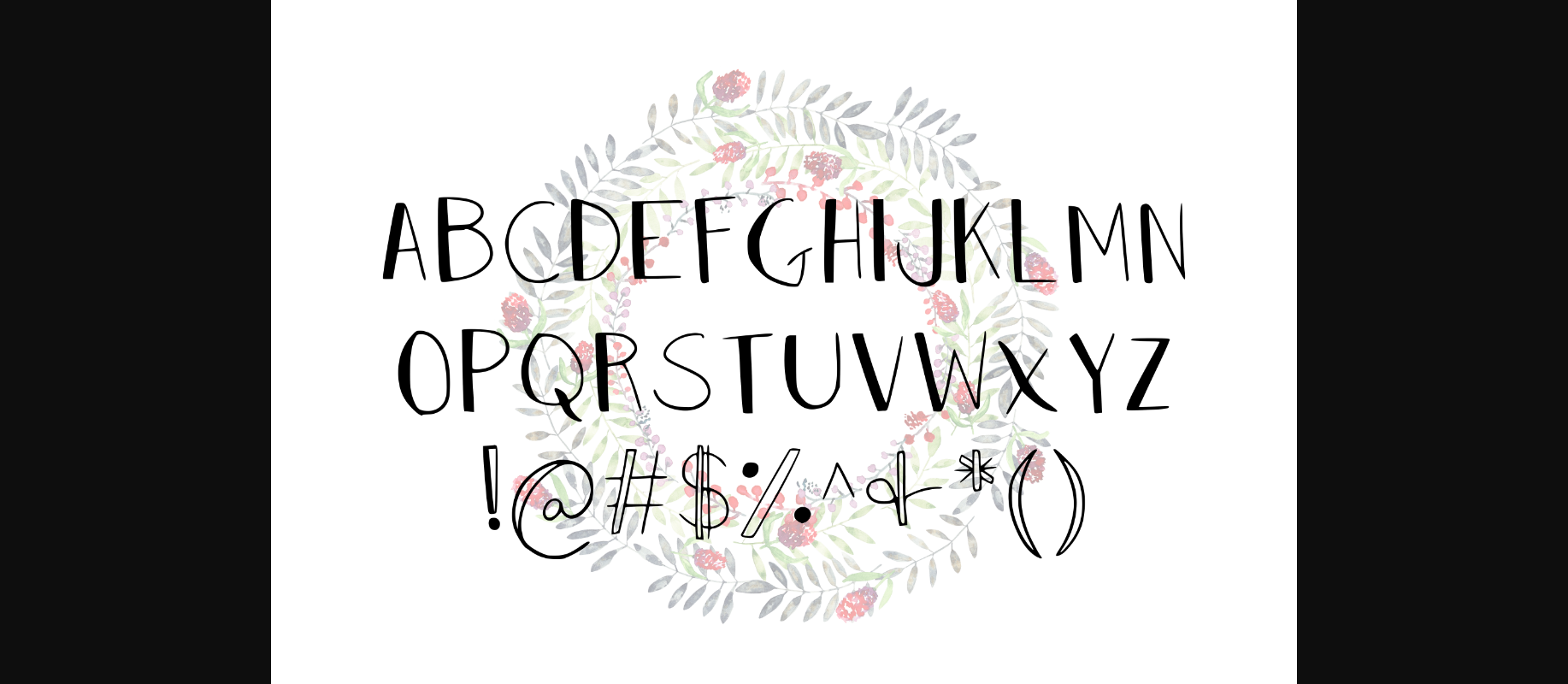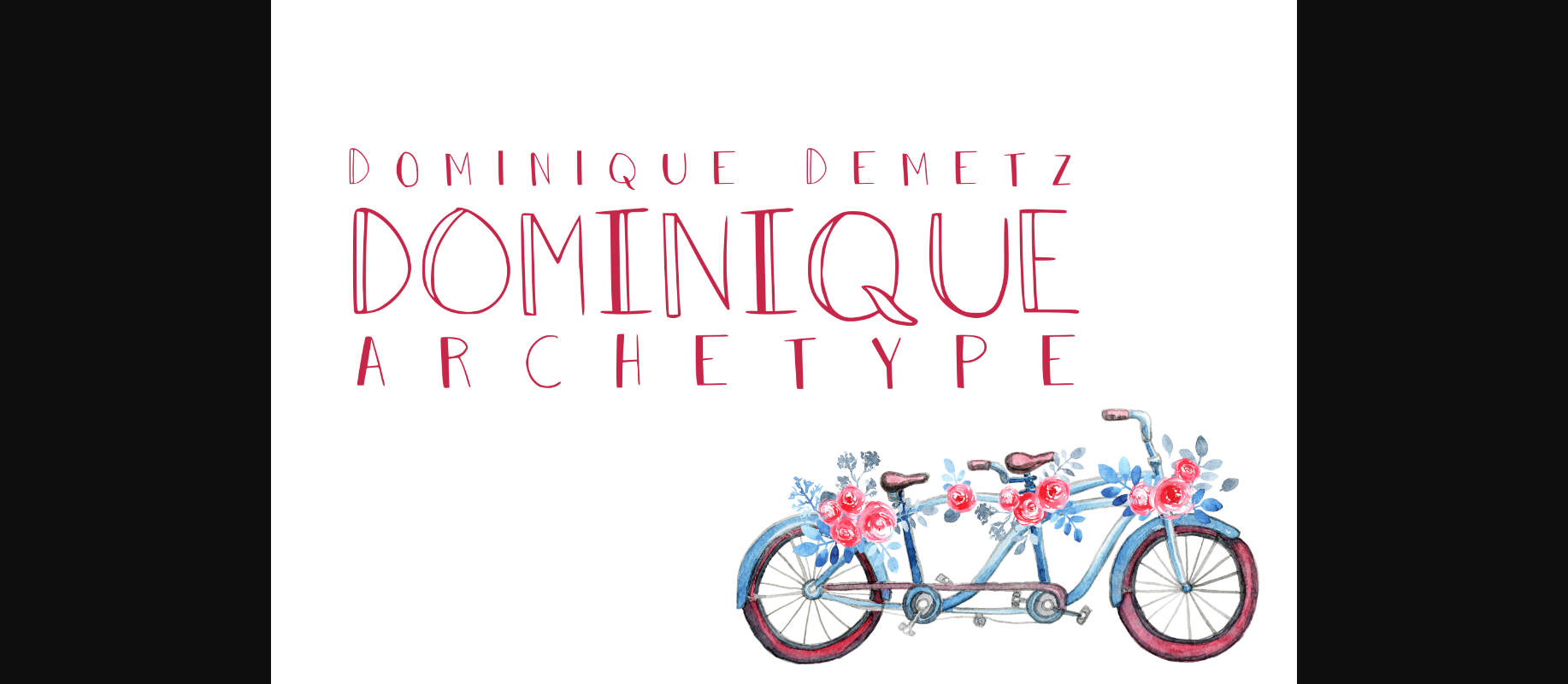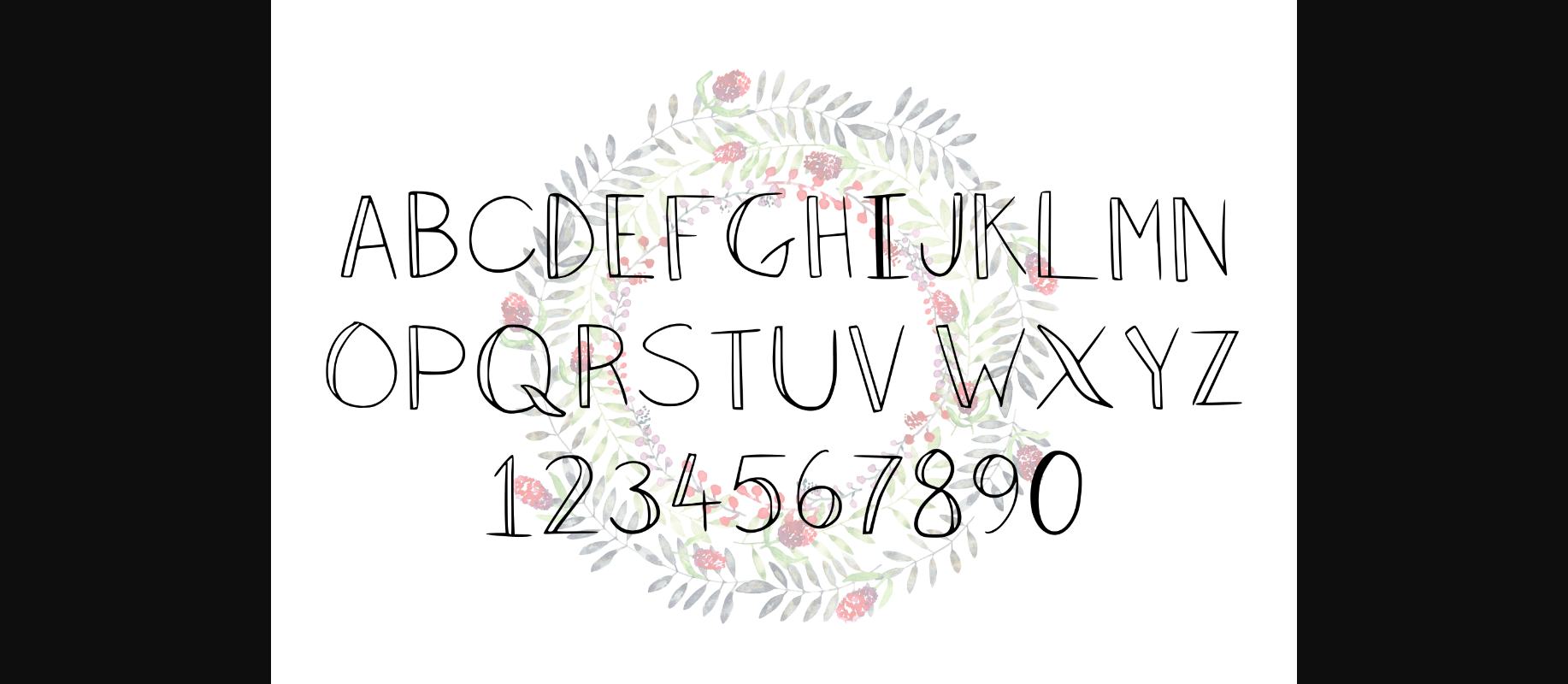
HomeDecorative FontsArchetype Font Decorative Fonts Archetype Font FacebookTwitterPinterestWhatsApp 1 of 5 ... Archetype Font Poster 2... Archetype Font Poster 3... Archetype Font Poster 4... Archetype Font Poster 5... About Archetype Font The archetype is a fun and original un-updated font. It has a playful style which can be used to give any design an unique look. DOWNLOAD NOW 213 0 People also explored Creativity Font Chatting Font Better Font Butter Sweet Font Chrystelle Font Leopard Font Hello World Font Blues Coast Font Lovalov Font Prewedding Font Watermelon Font Ongolin Font TagsArchetype Font Previous articleVelove FontNext articleSubscribe Family Font LEAVE A REPLY Cancel reply Comment: Please enter your comment! Name:* Please enter your name here Email:* You have entered an incorrect email address! Please enter your email address here Website: Save my name, email, and website in this browser for the next time I comment. Unlock Endless Creativity with the FREE September Clipart Huge Bundle (Valued at $700!) Personal Use Free New Normal Personal Use Free Read more Carved Wood Personal Use Free Read more Concrete Wall Personal Use Free Read more Houstonville Personal Use Free Read more BLOG To increase your work productivity, choose the most readable fonts. In today's fast-paced work environment, where digital communication and information consumption are integral to our daily routines, the choice of fonts can significantly impact... Where to Buy American Fonts Online in 2024 The 10 Best Handwriting Fonts to Add Personality to Your Designs Free Fonts Risk: Why Free Fonts Can Be Dangerous for Designers